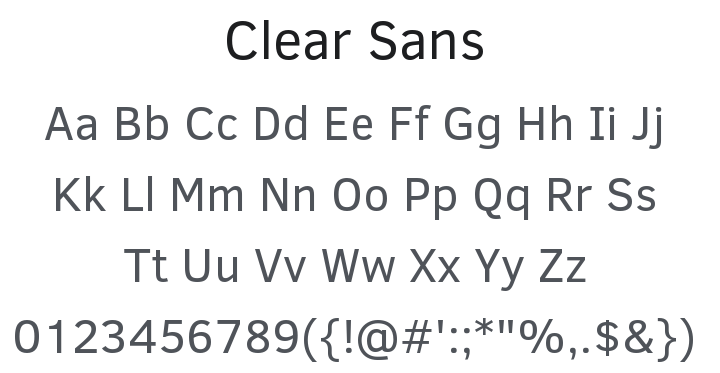
Clear Sans Font Family
About Clear Sans
Clear Sans has been recognized as a versatile OpenType font for screen, print, and Web. It was designed with on-screen legibility in mind and strikes a balance between contemporary, professional, and stylish expression and thoroughly functional purpose. It has a sophisticated and elegant personality at all sizes, and its thoughtful design becomes even more evident at the thin weight.
Clear Sans has minimized, unambiguous characters and slightly narrow proportions, making it ideal for UI design. Its strong, recognizable forms avoid distracting ambiguity, making it comfortable for reading short UI labels and long passages in both screen and print.